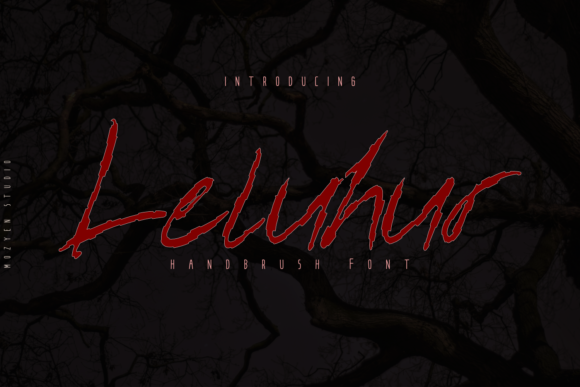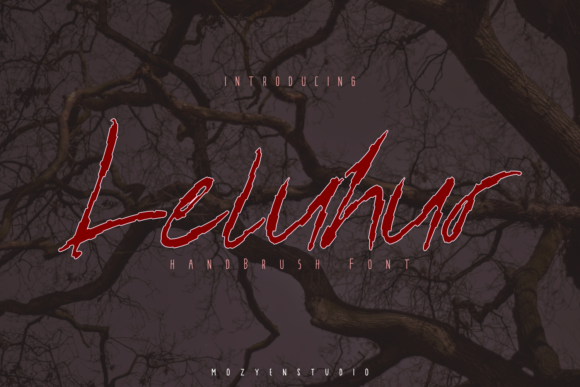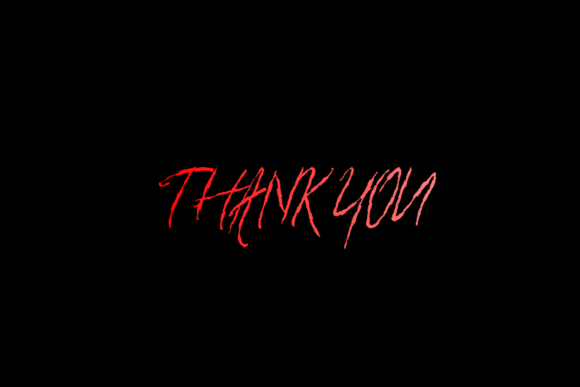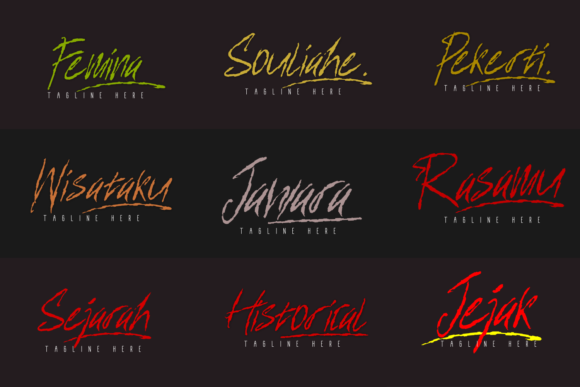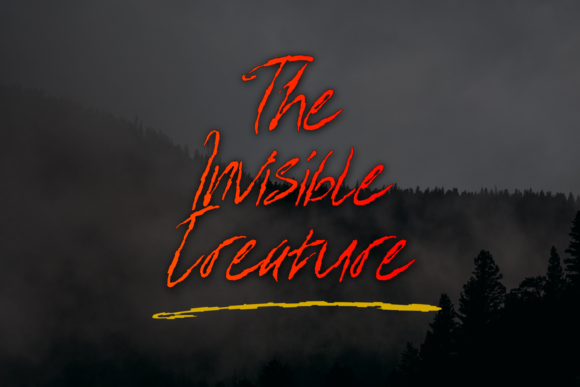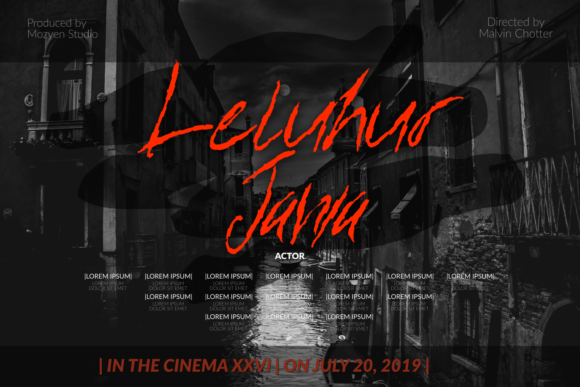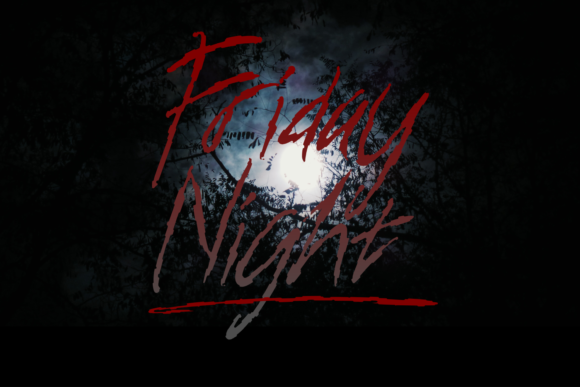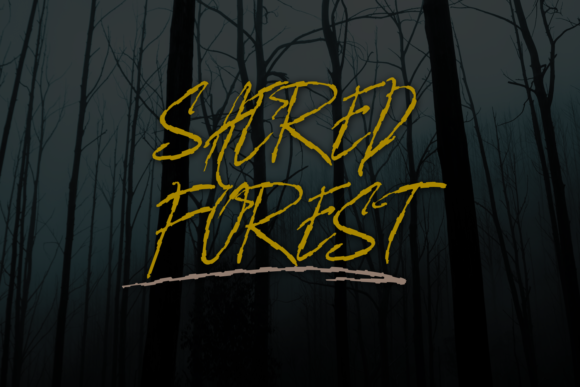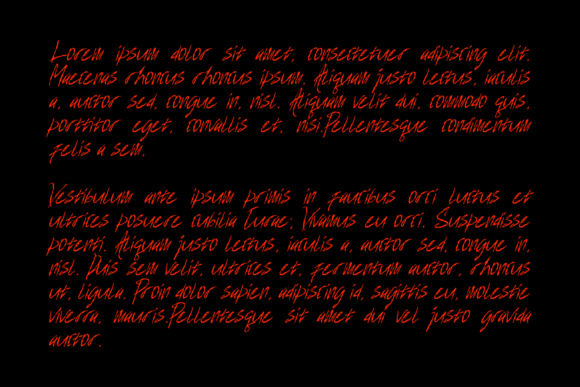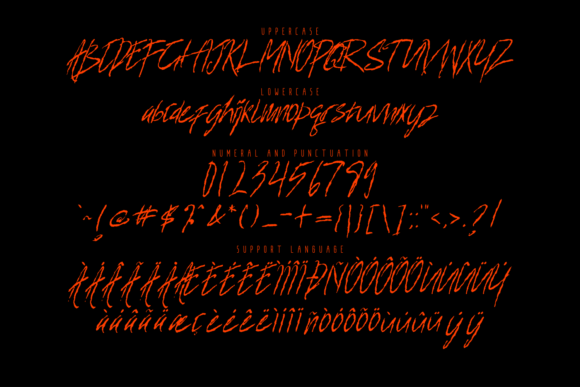
Leluhur Font
Leluhur is an incredibly unique handwritten font. Fall in love with its incredibly versatile style and use it to create spectacular designs!